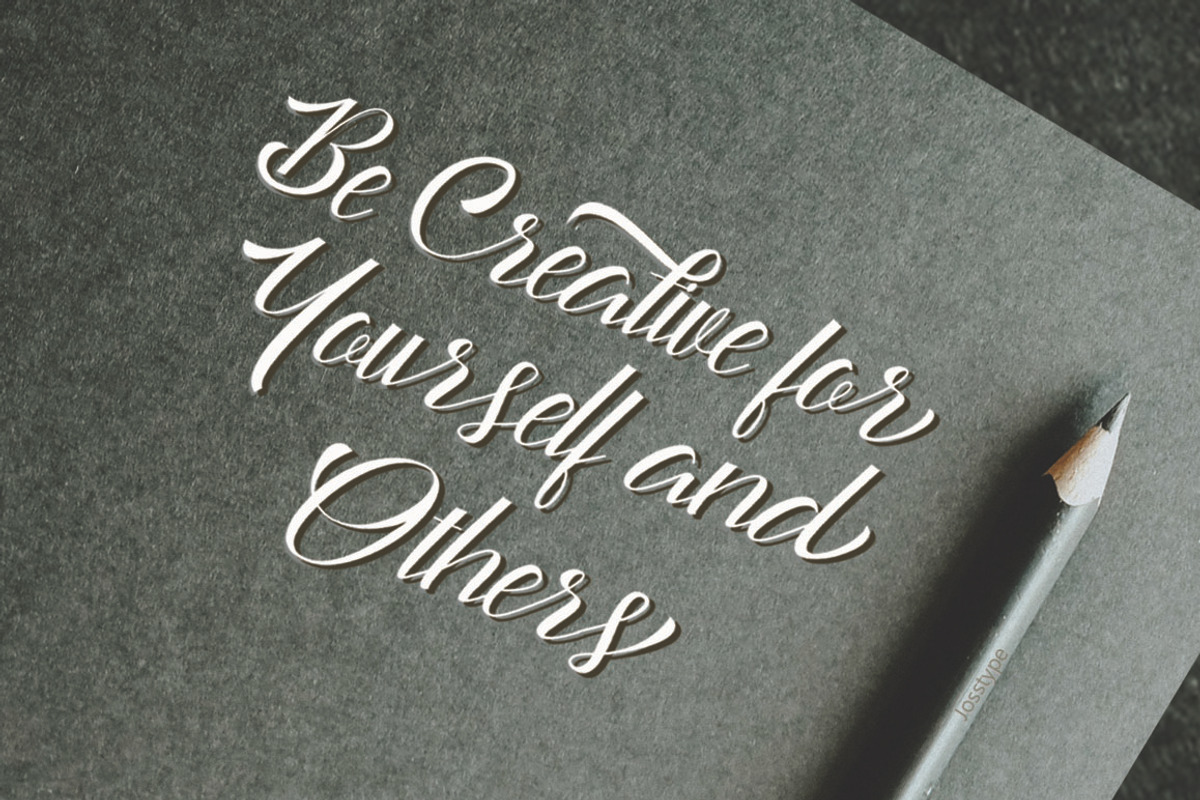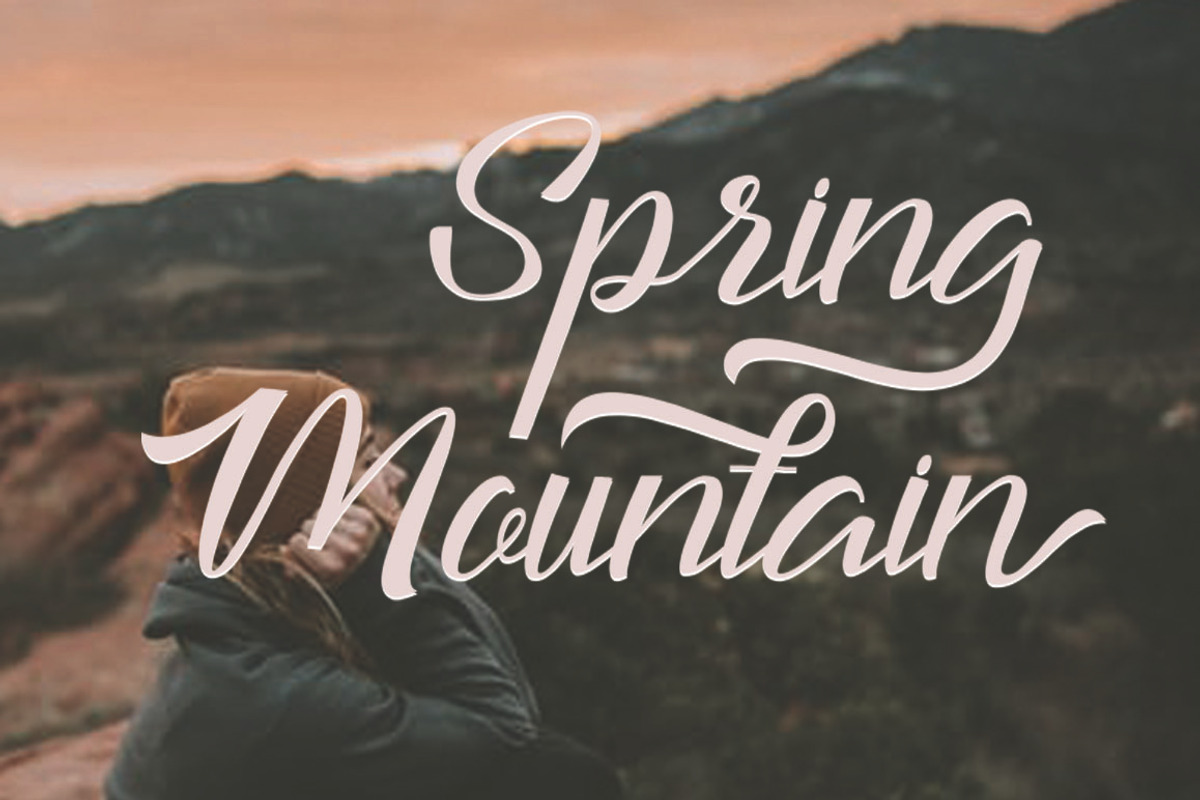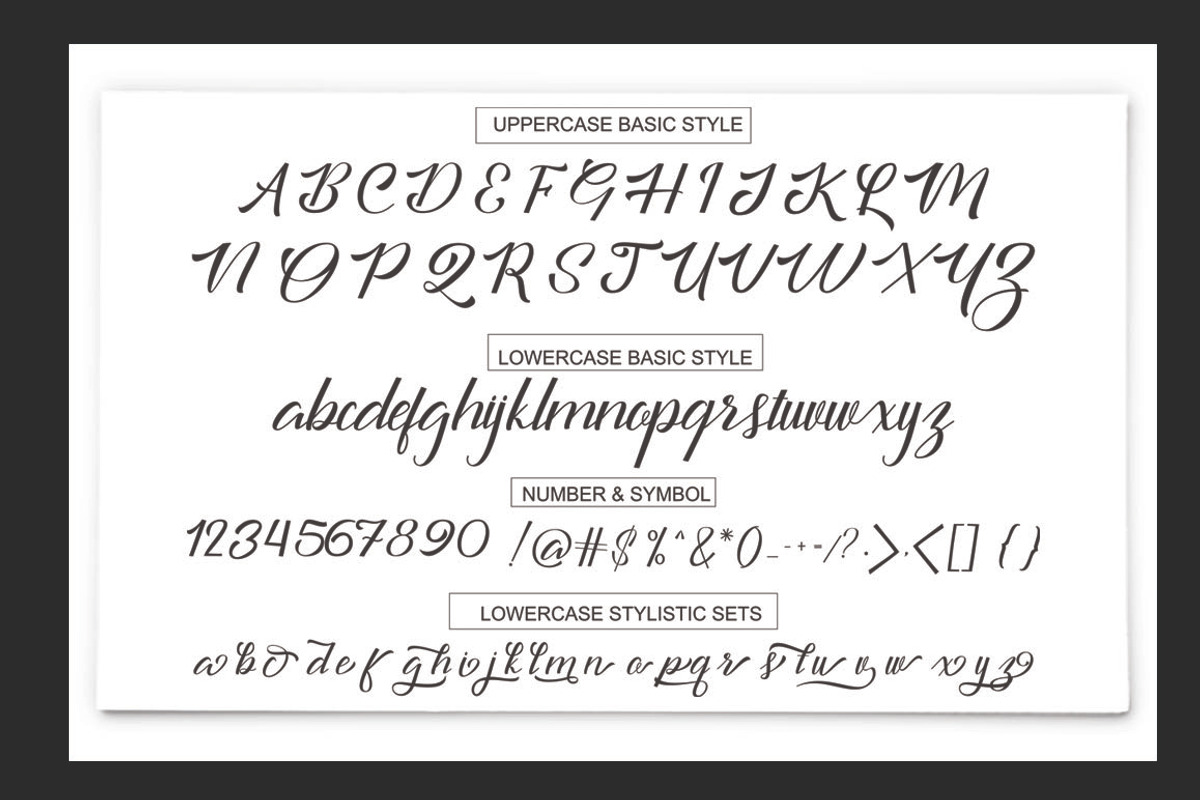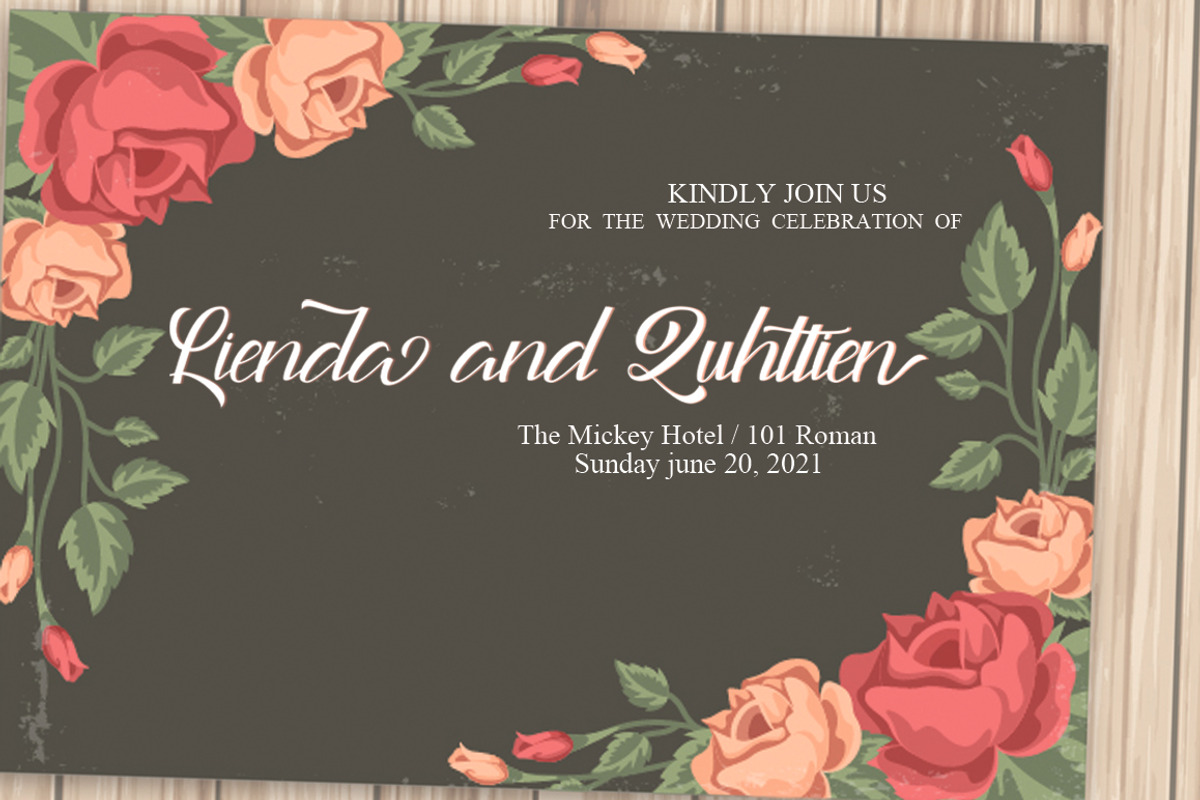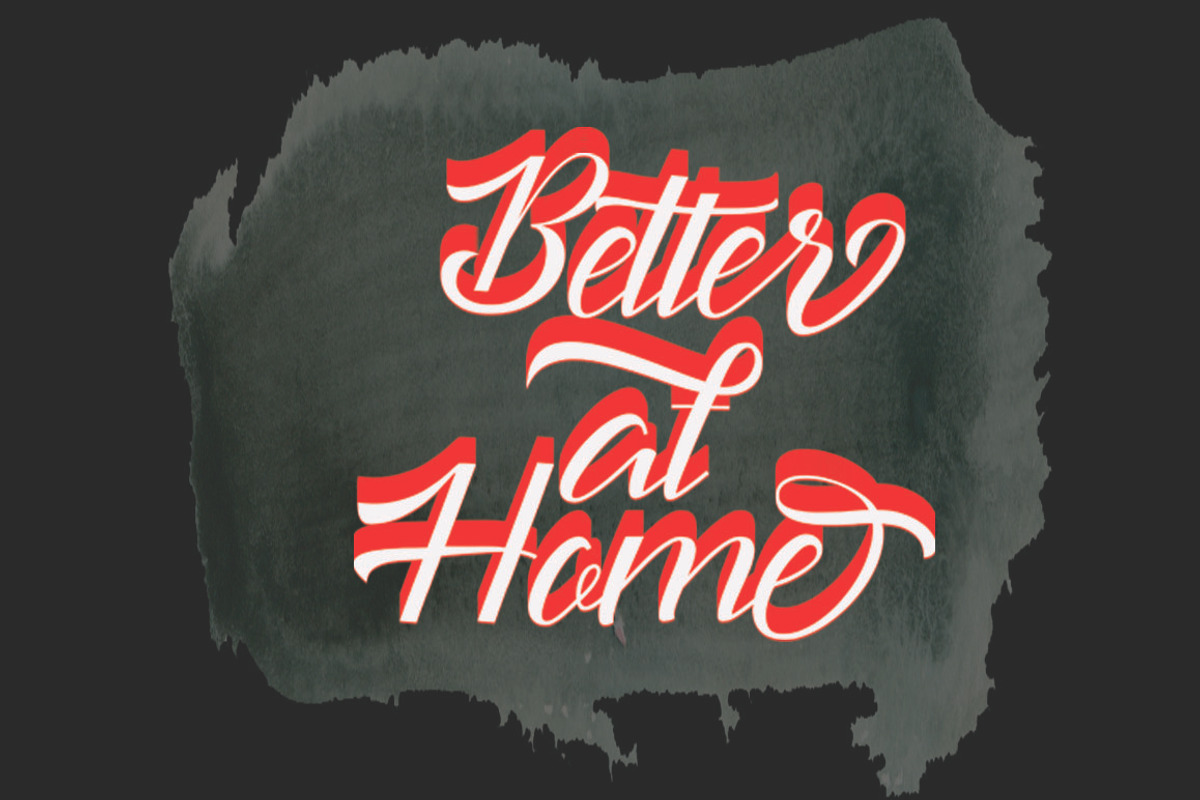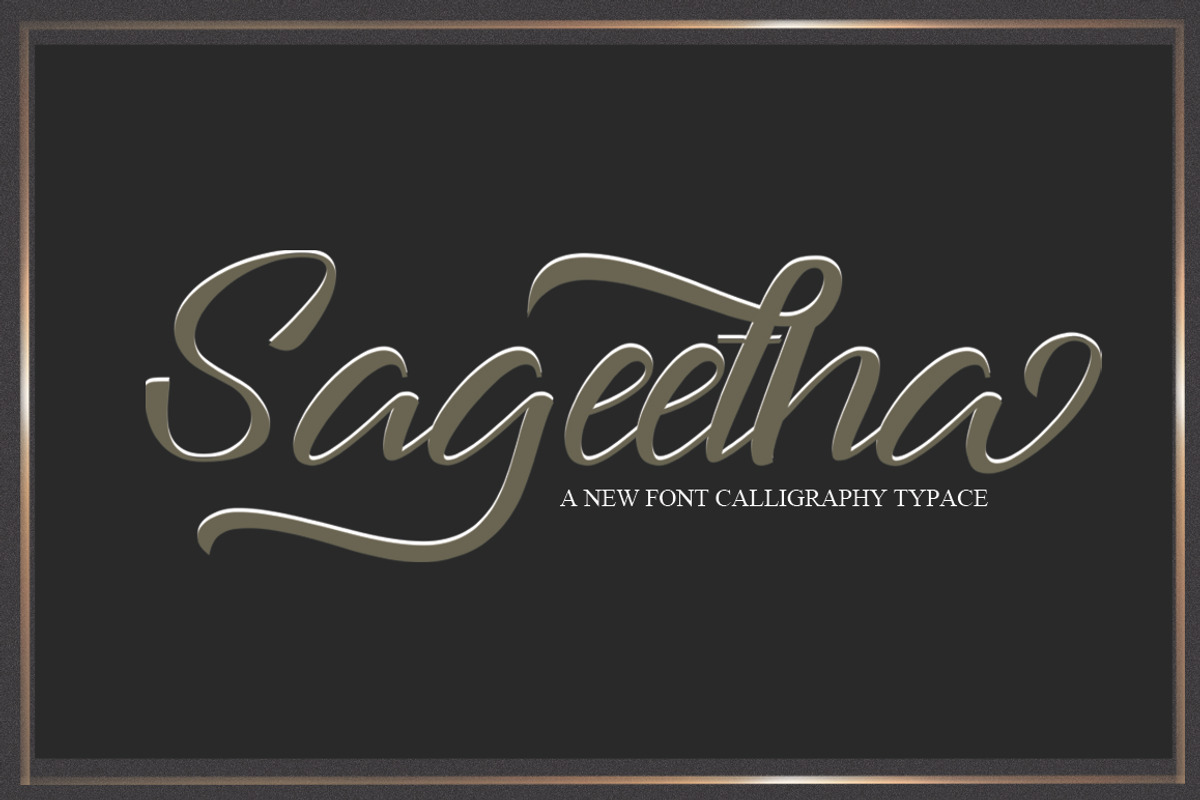
Sageetha
Sageetha Scrip is a handwritten typeface with classic root. a beautiful formal script and elegant touch. It works perfect in the world of weddings, logos, greeting cards, branding, print ads, quotes, signage, magazines etc.